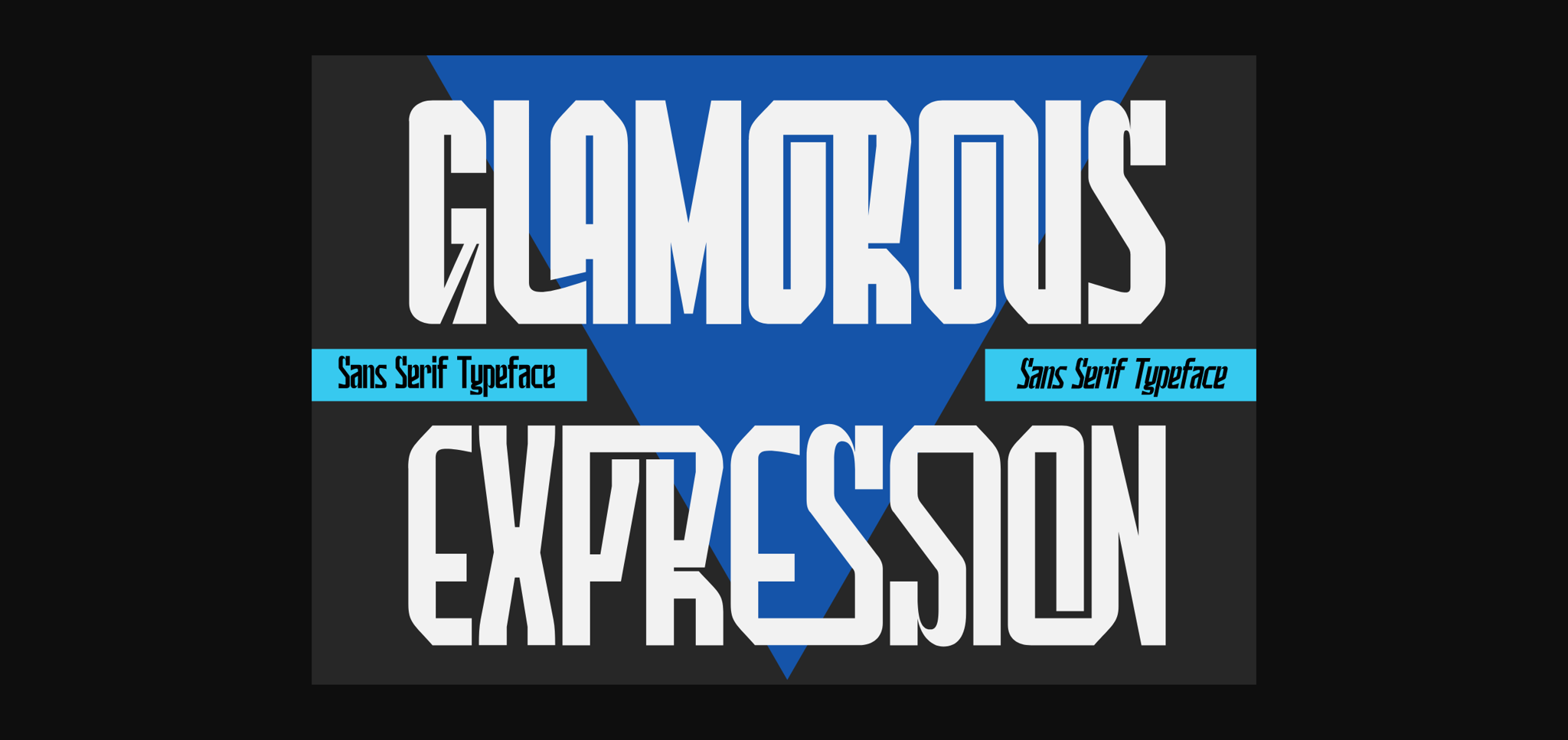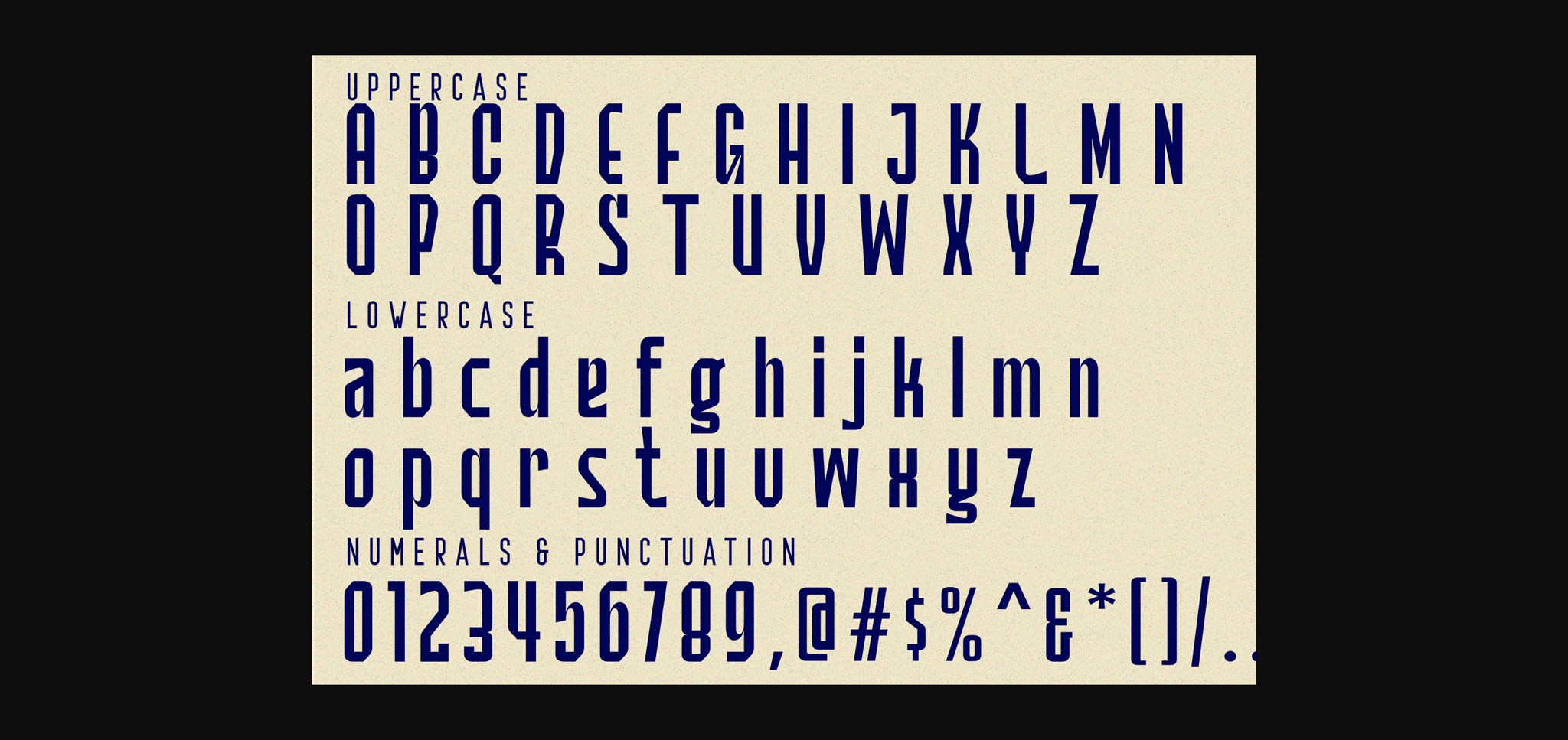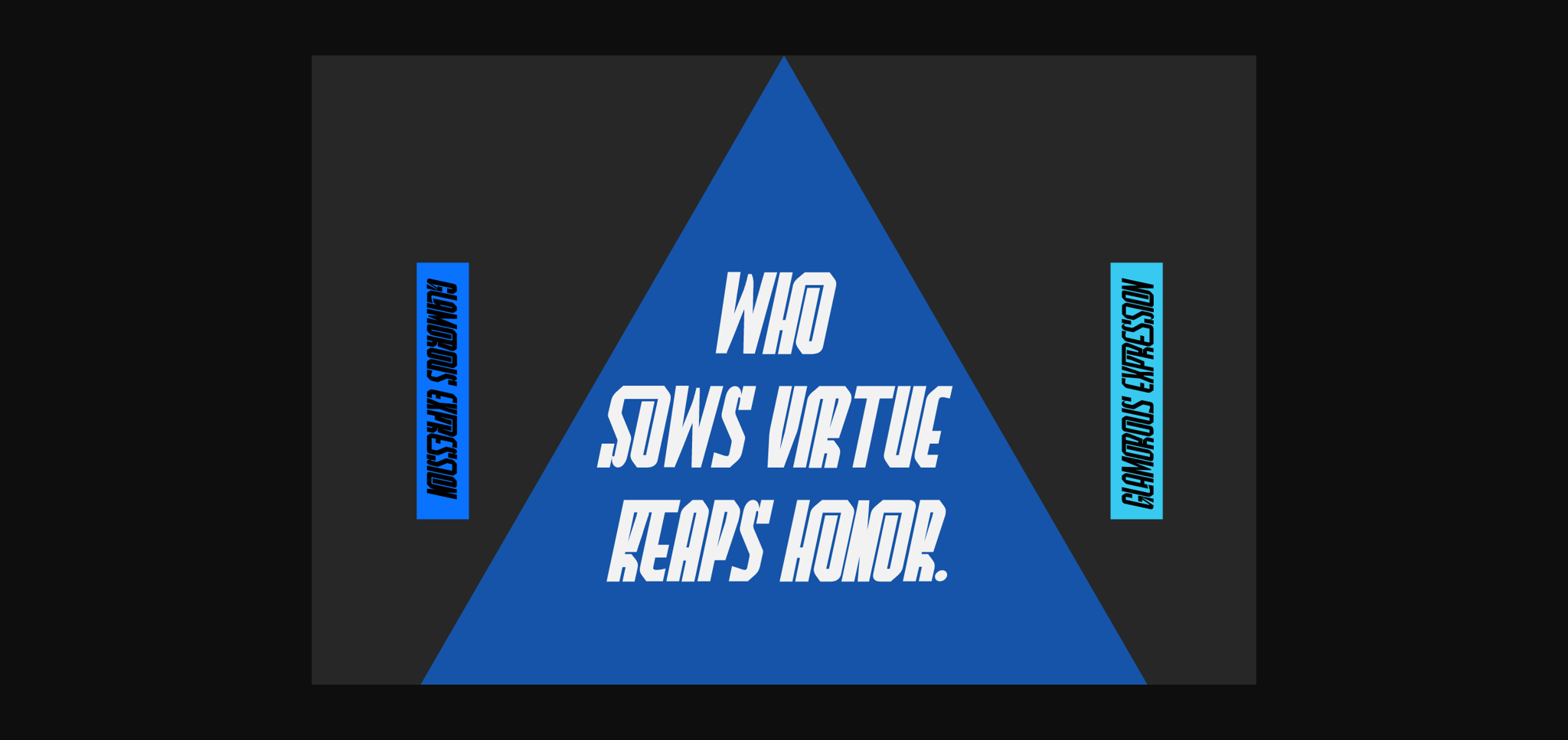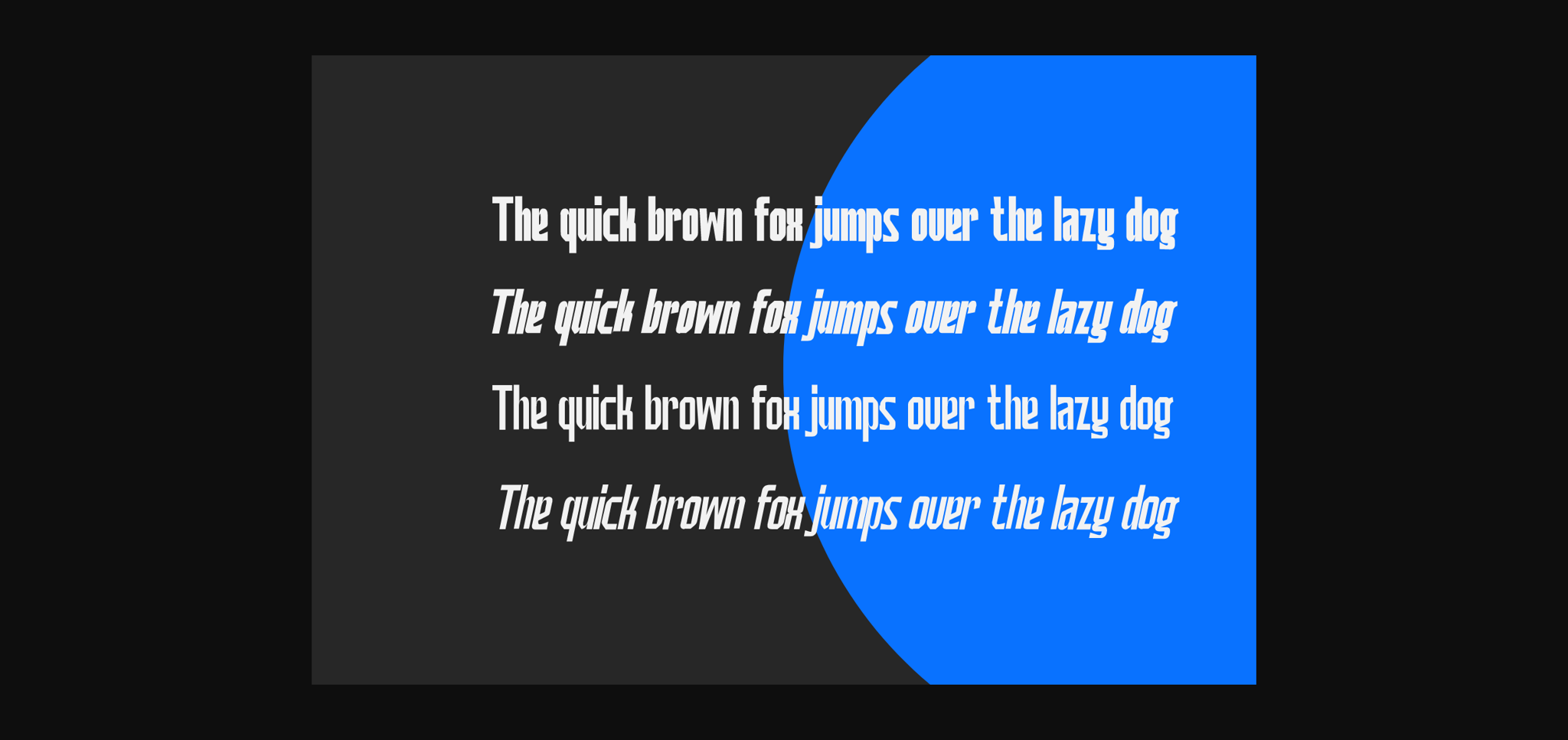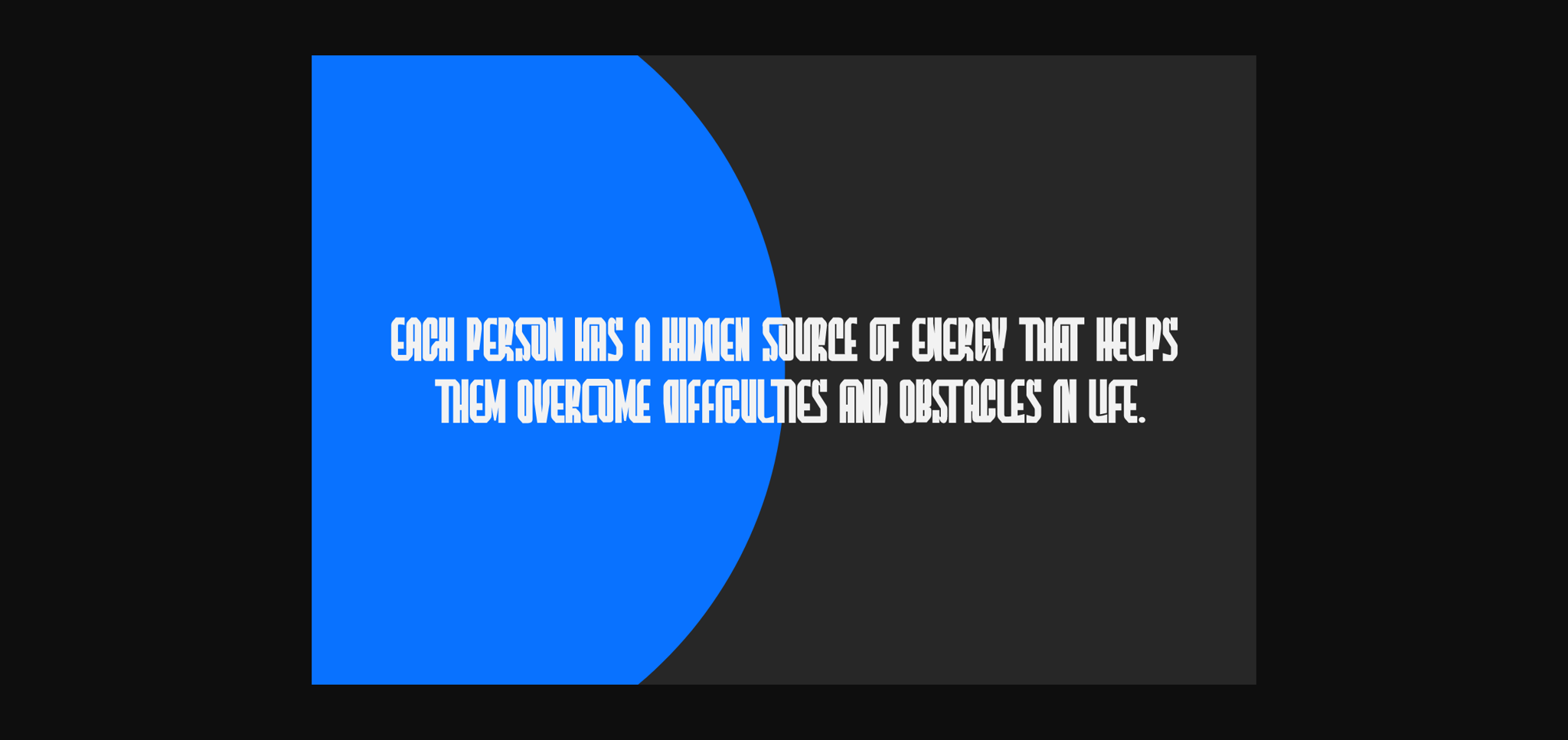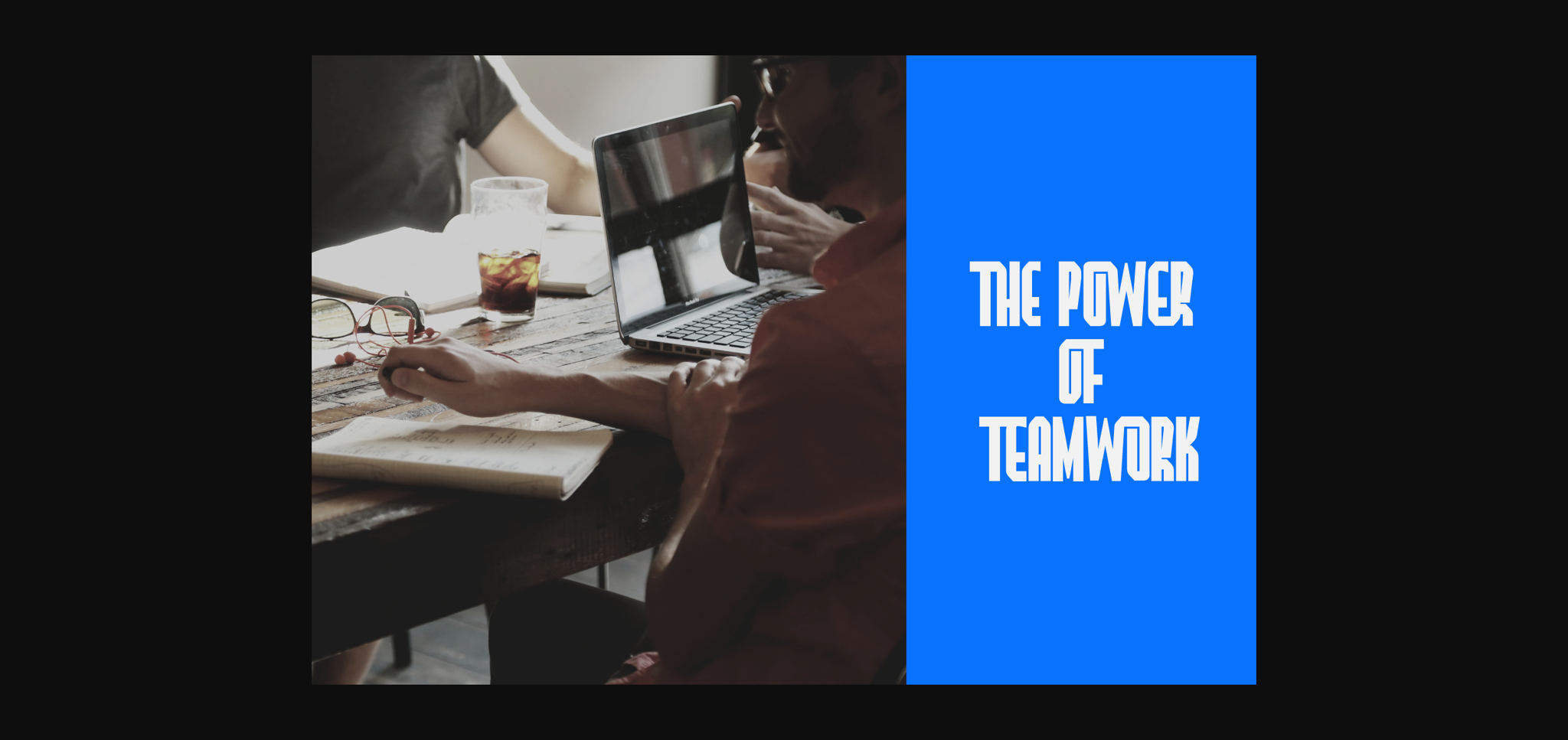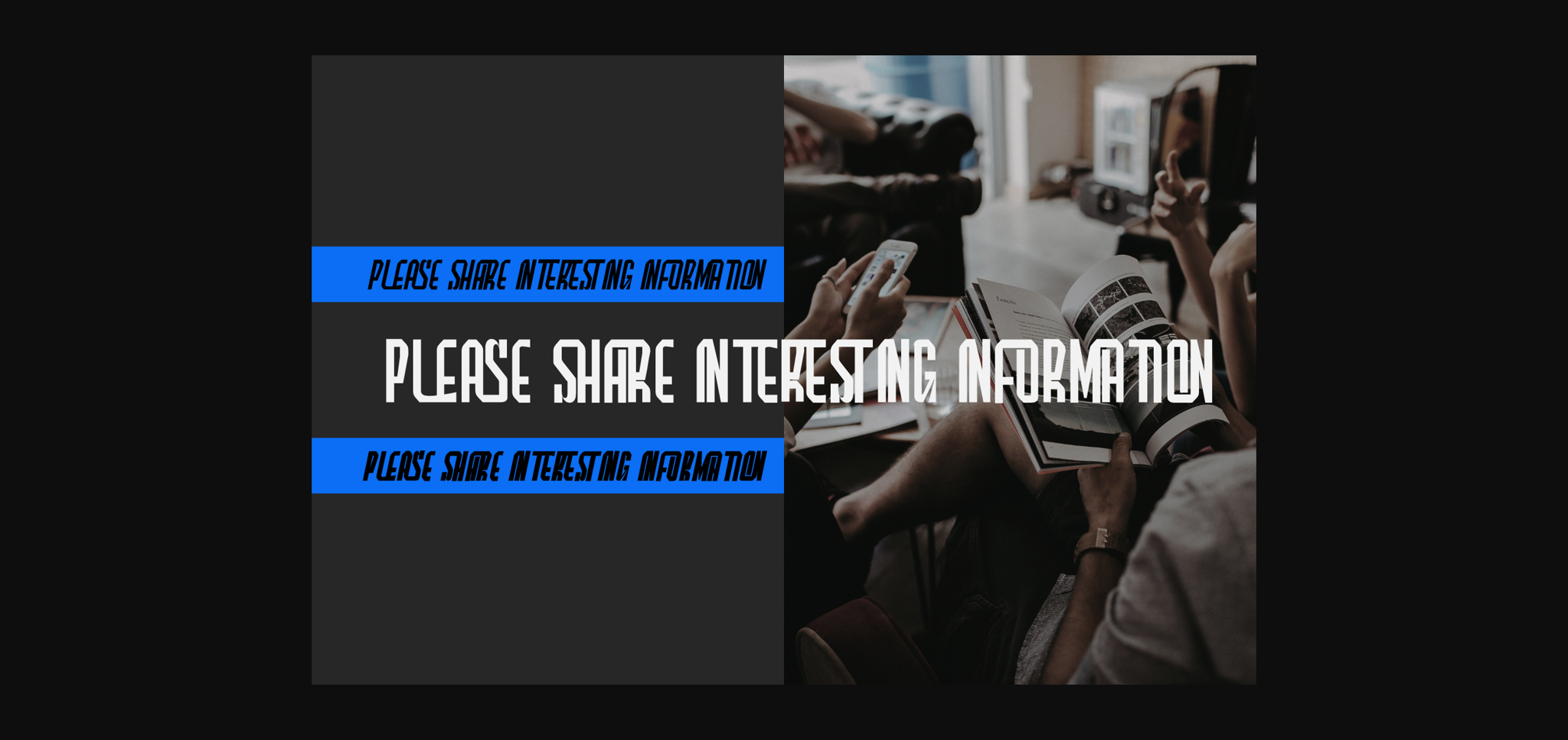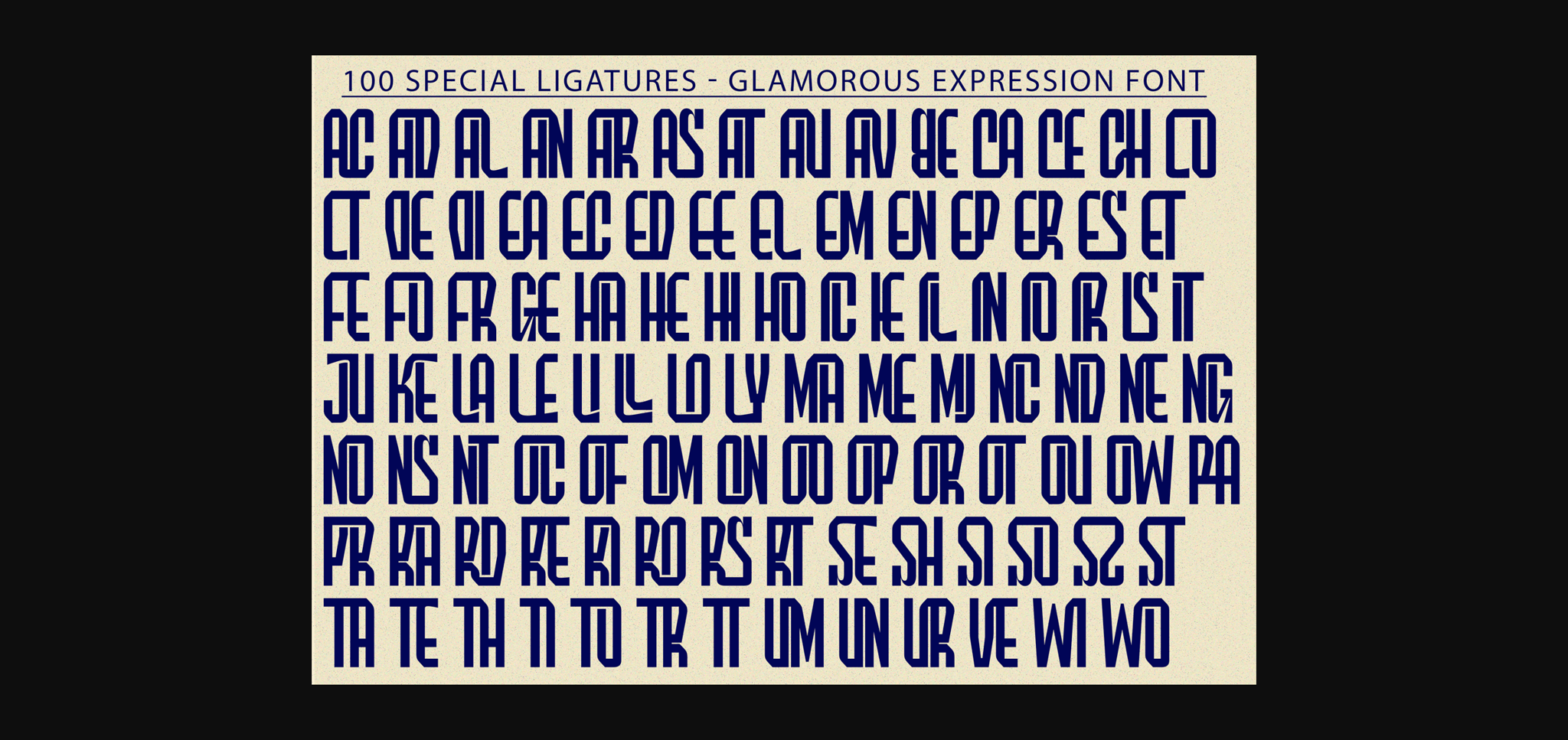
Glamorous Expression Font
About Glamorous Expression Font
Glamourous Expression is a fancy modern condensed all Caps sans serif font. With bold tall and sharp stroke, fun character with a bit of ligatures. A versatile sans-serif typeface that seamlessly blends modern aesthetics with functionality. This font is good for logo design, Social media, Movie Titles, Books Titles, a short text even a long text letter and good for your secondary text font with sans or serif.